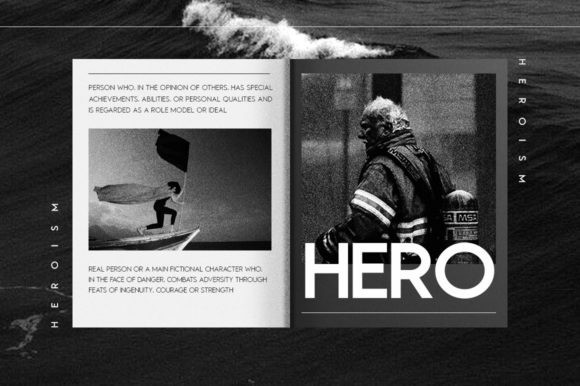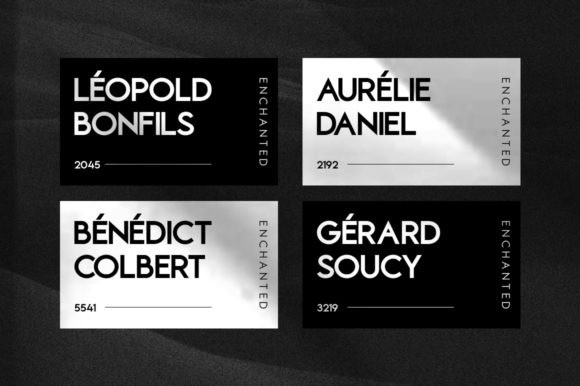
Thermidava Sans Serif Font
It’s a fully reconsidered high contrast transitional sans serif, which is perfectly adapted to modern realities and requirements. It can easily be matched to an incredibly large set of projects, so add it to your creative ideas and notice how it makes them stand out!